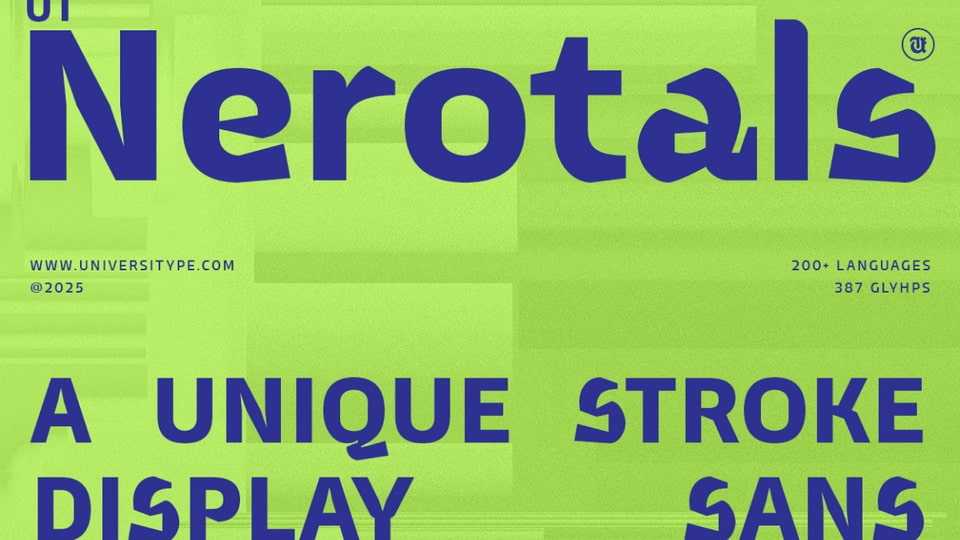
Download UT Nerotals font, a sans serif typeface deeply influenced by a captivating sculpture that seamlessly blends organic forms with geometric precision.
Designer: Universitype Foundry